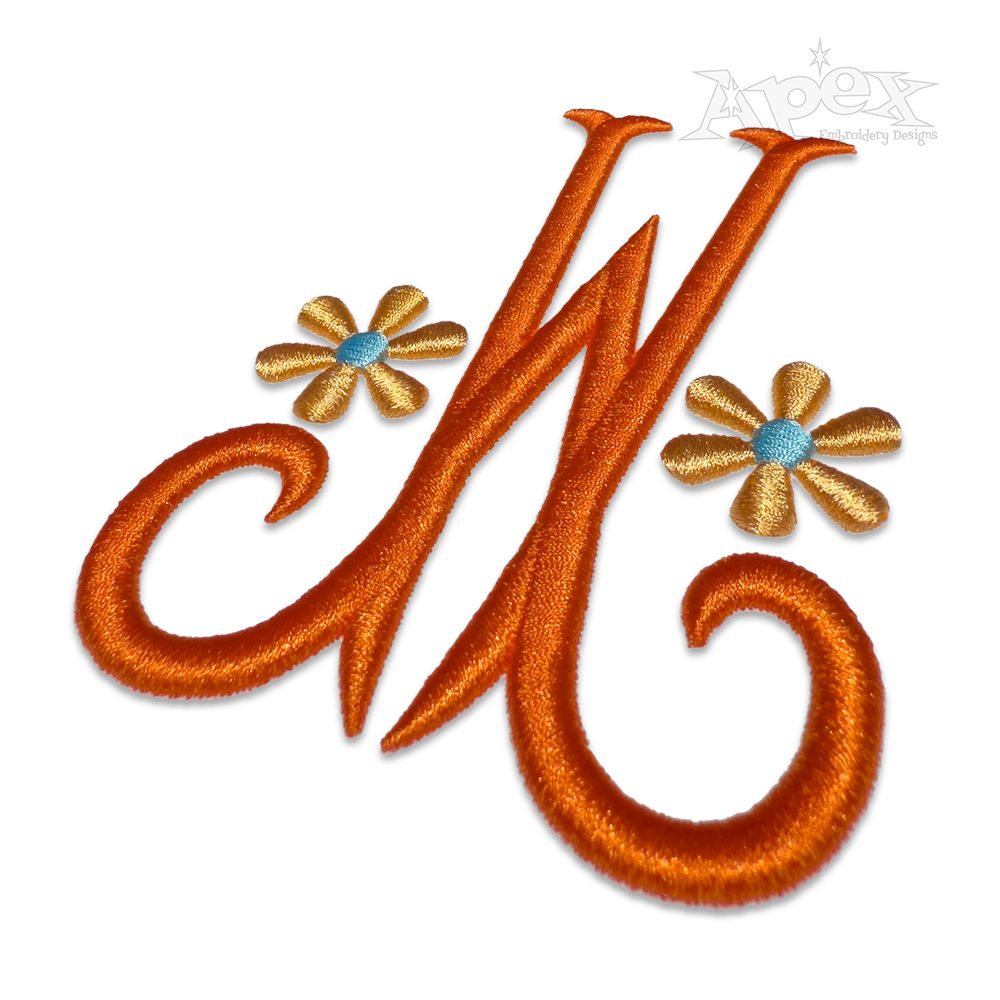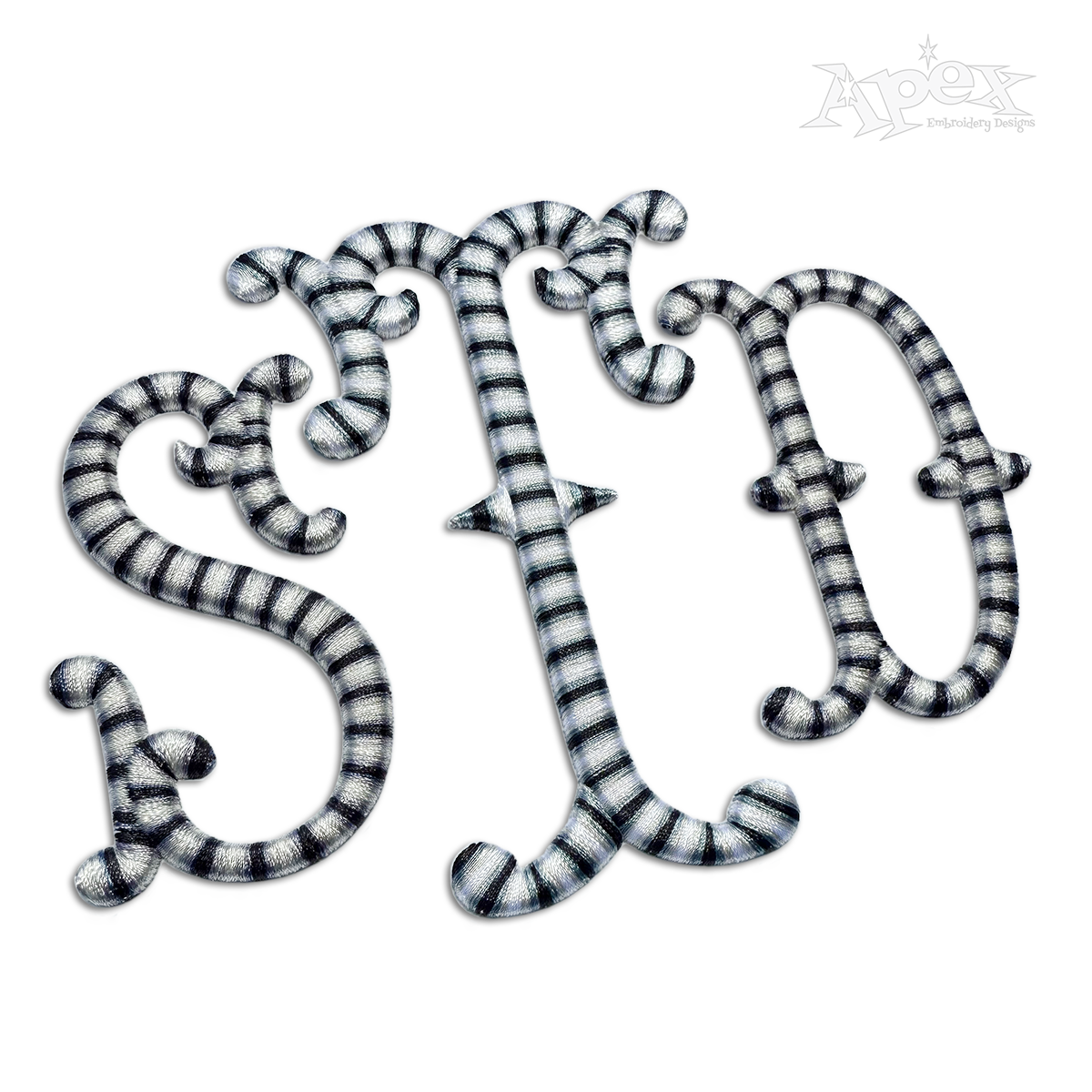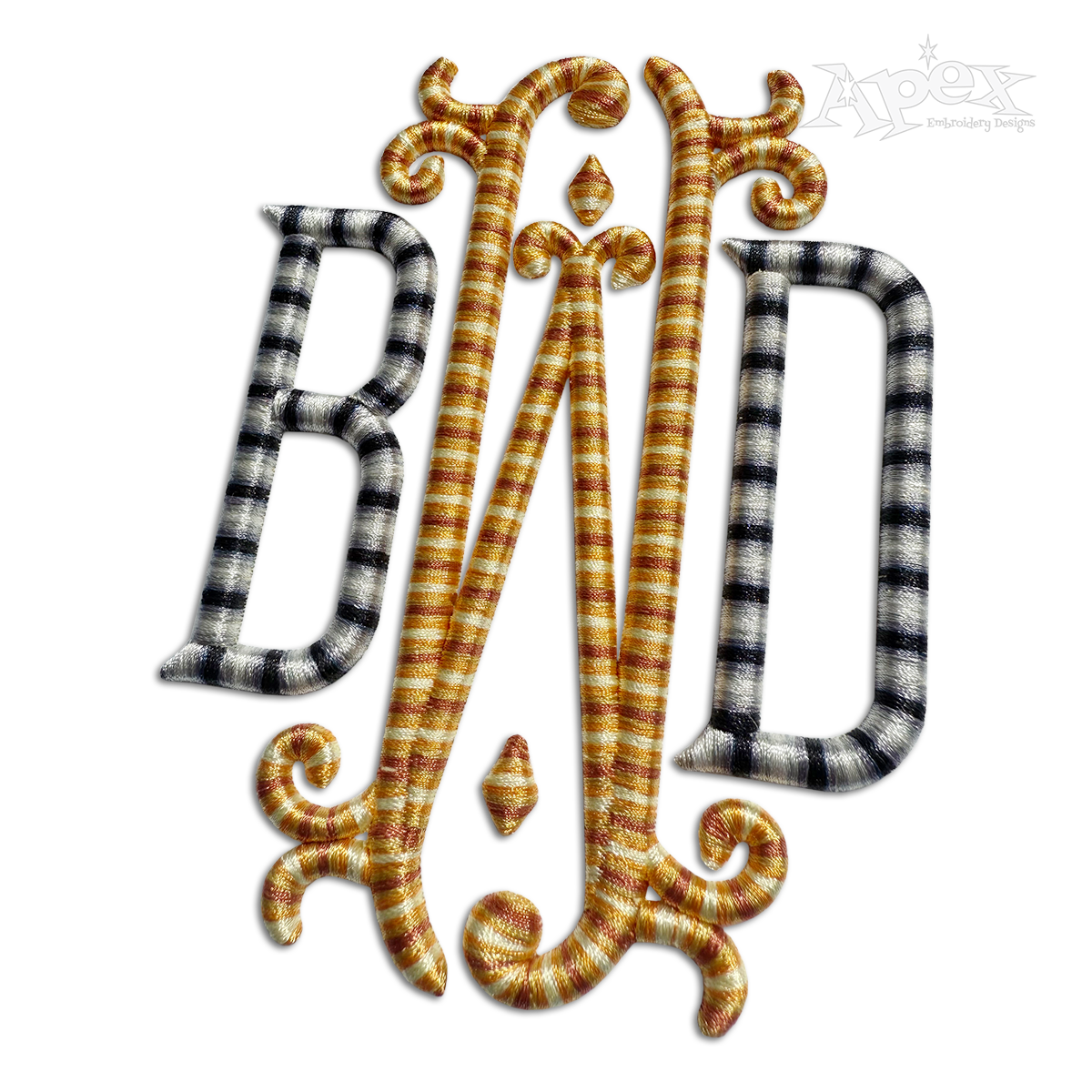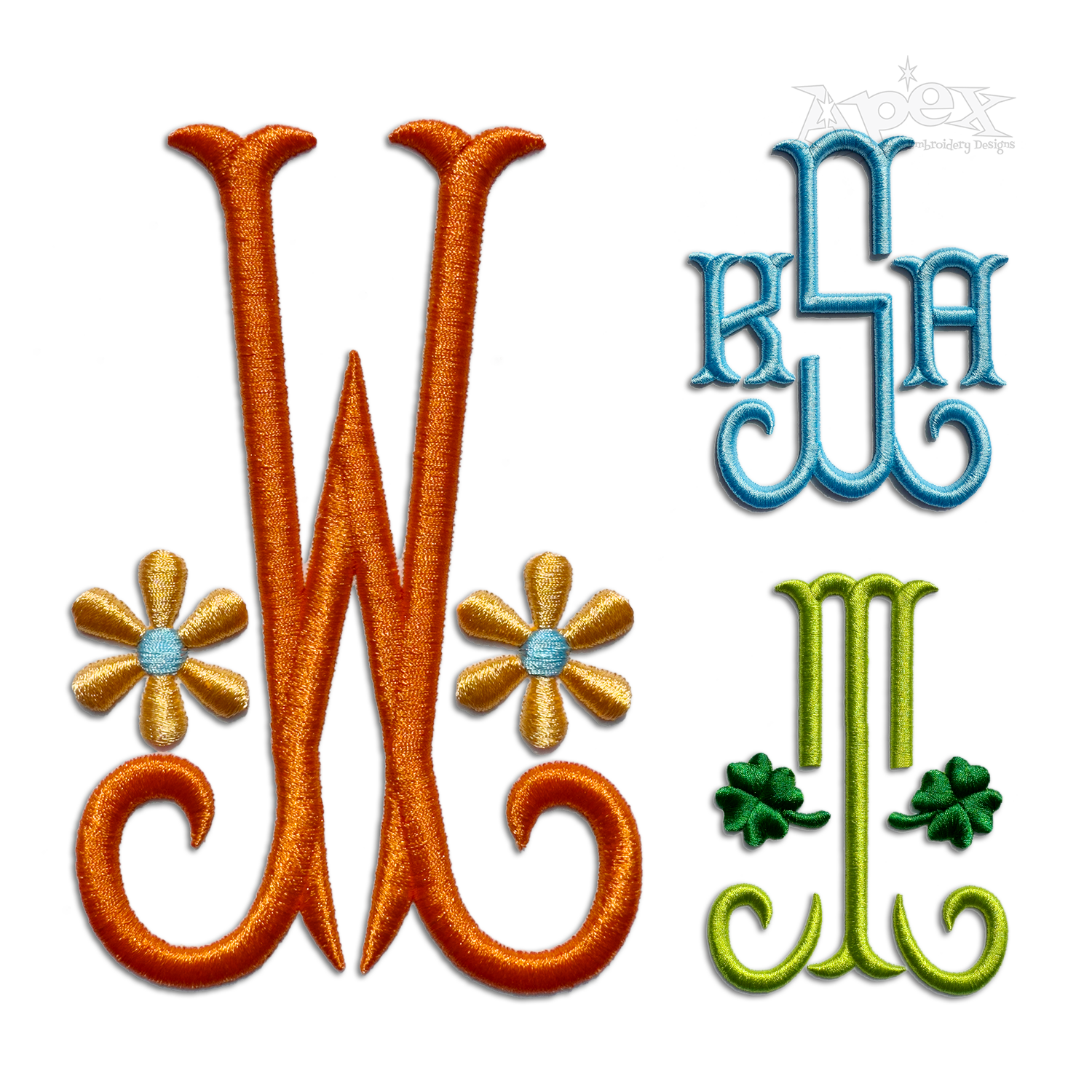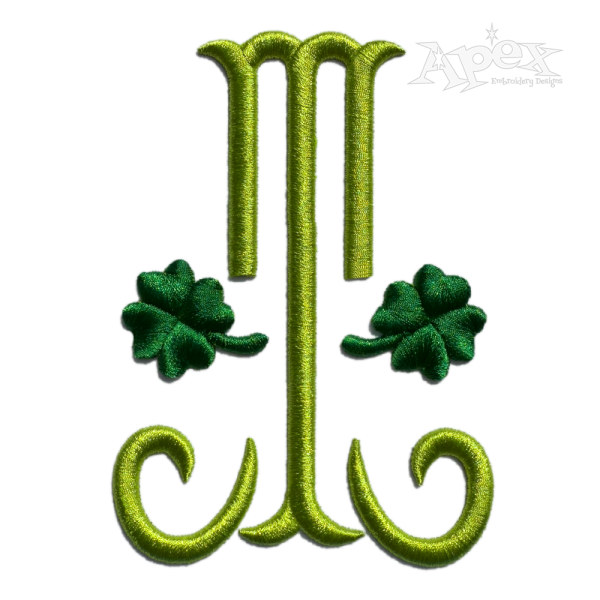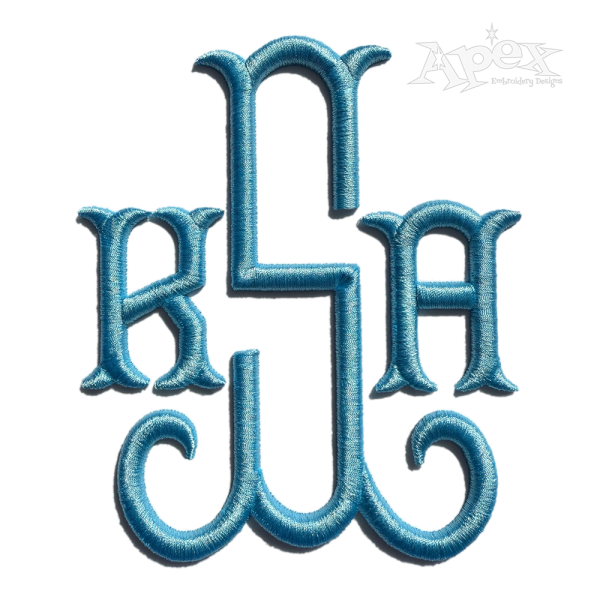
Shirley Monogram 3D Puff Embroidery Font
Create 3D Puff style personalized gifts and home décor with Shirley Monogram font .Fancy Shirley Monogram old world Monogram Embroidery Font Featuring a classic Regal stylish embroidery monogram set is perfect for customizing hats, linens, towels, baby gifts, tote bags, and more.
This premium Shirley Monogram embroidery font collection includes complete size sets with uppercase monogram letters designed for creating stunning 3-letter monograms. Each font comes professionally digitized for smooth stitching and excellent embroidery results. Apex has digitized machine embroidery fonts for over 25 years.
- Shirley Monogram Font
- Perfect for 3-Letter Monograms
- Custom Home Décor Projects